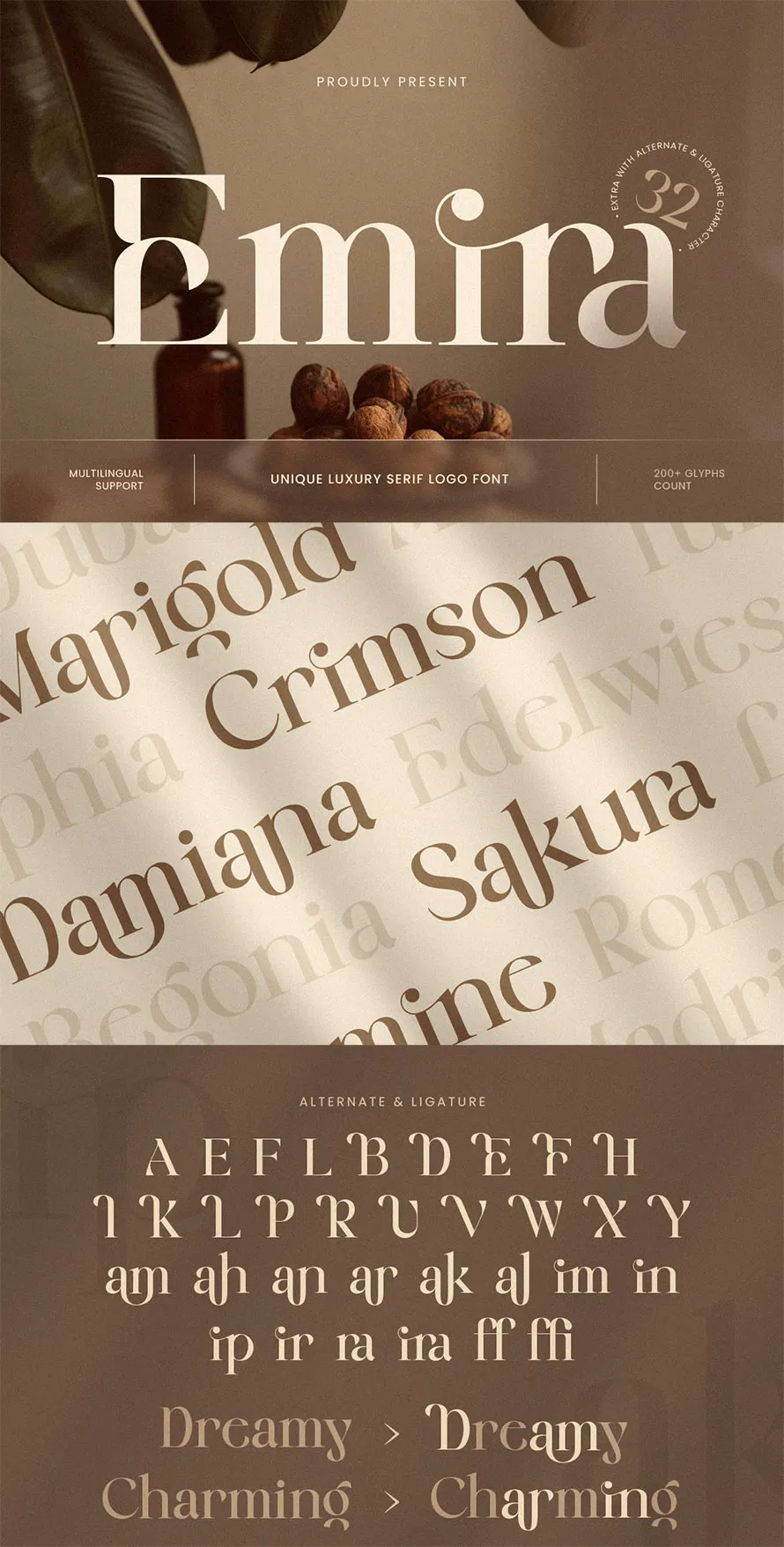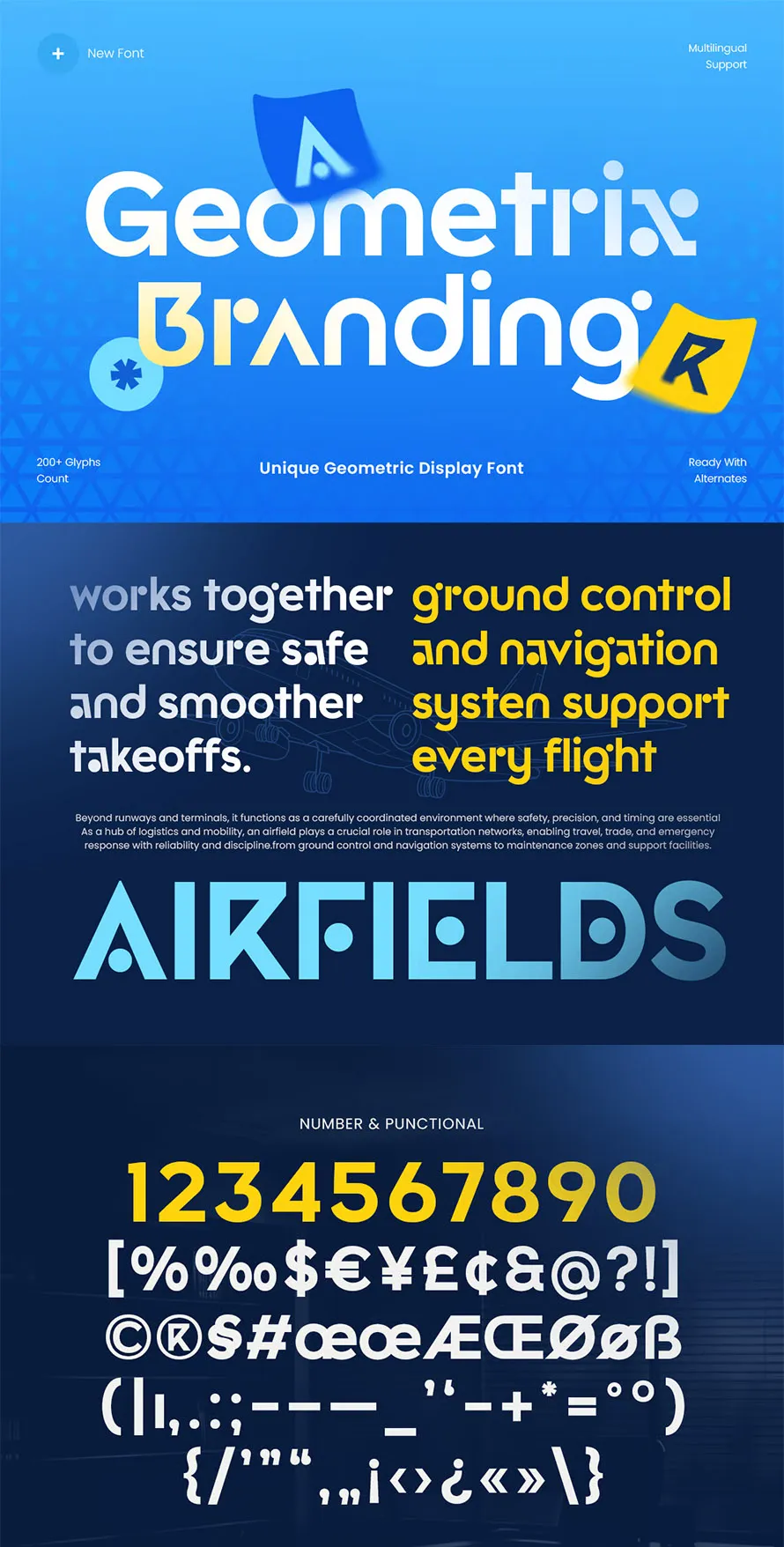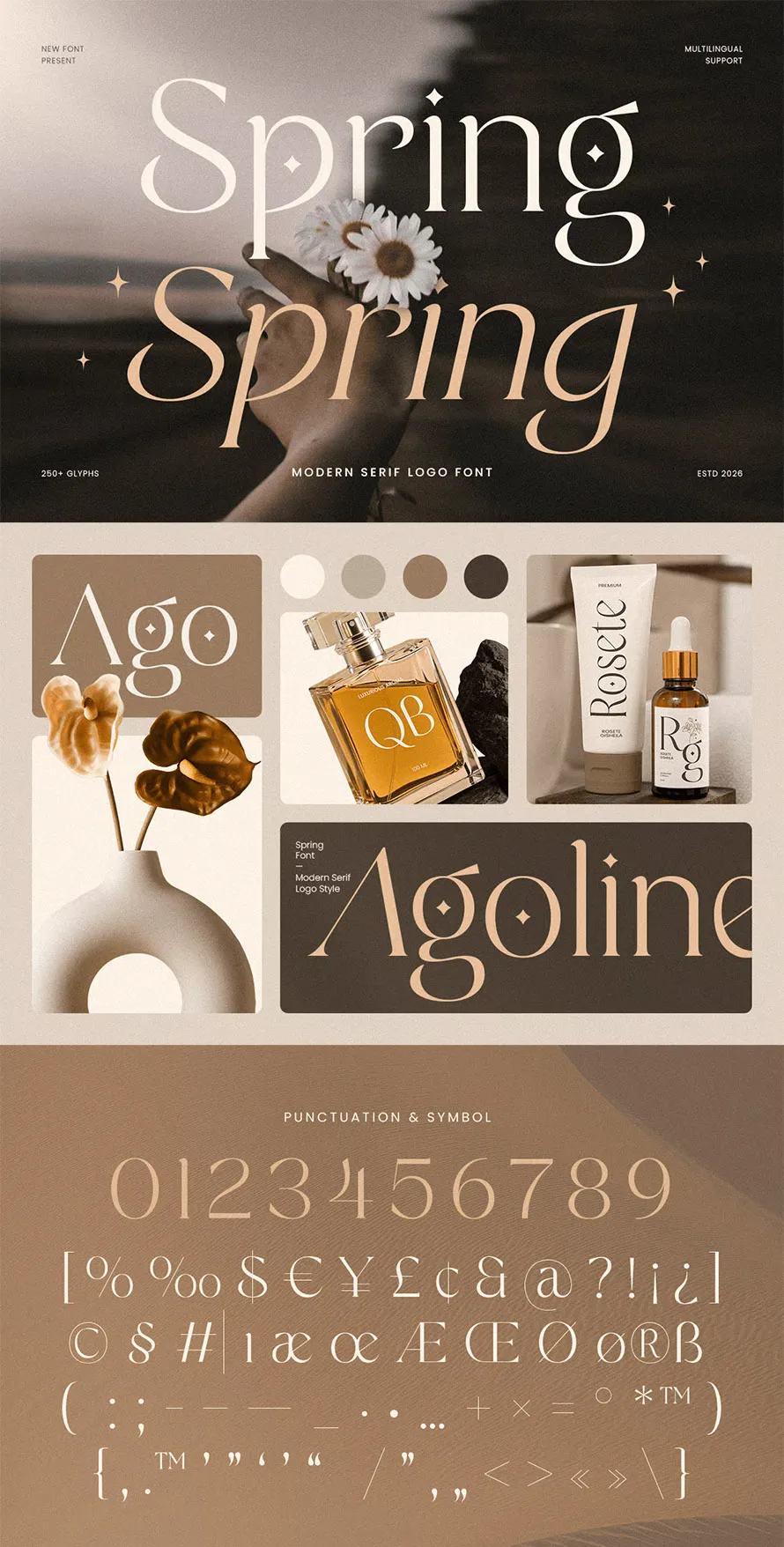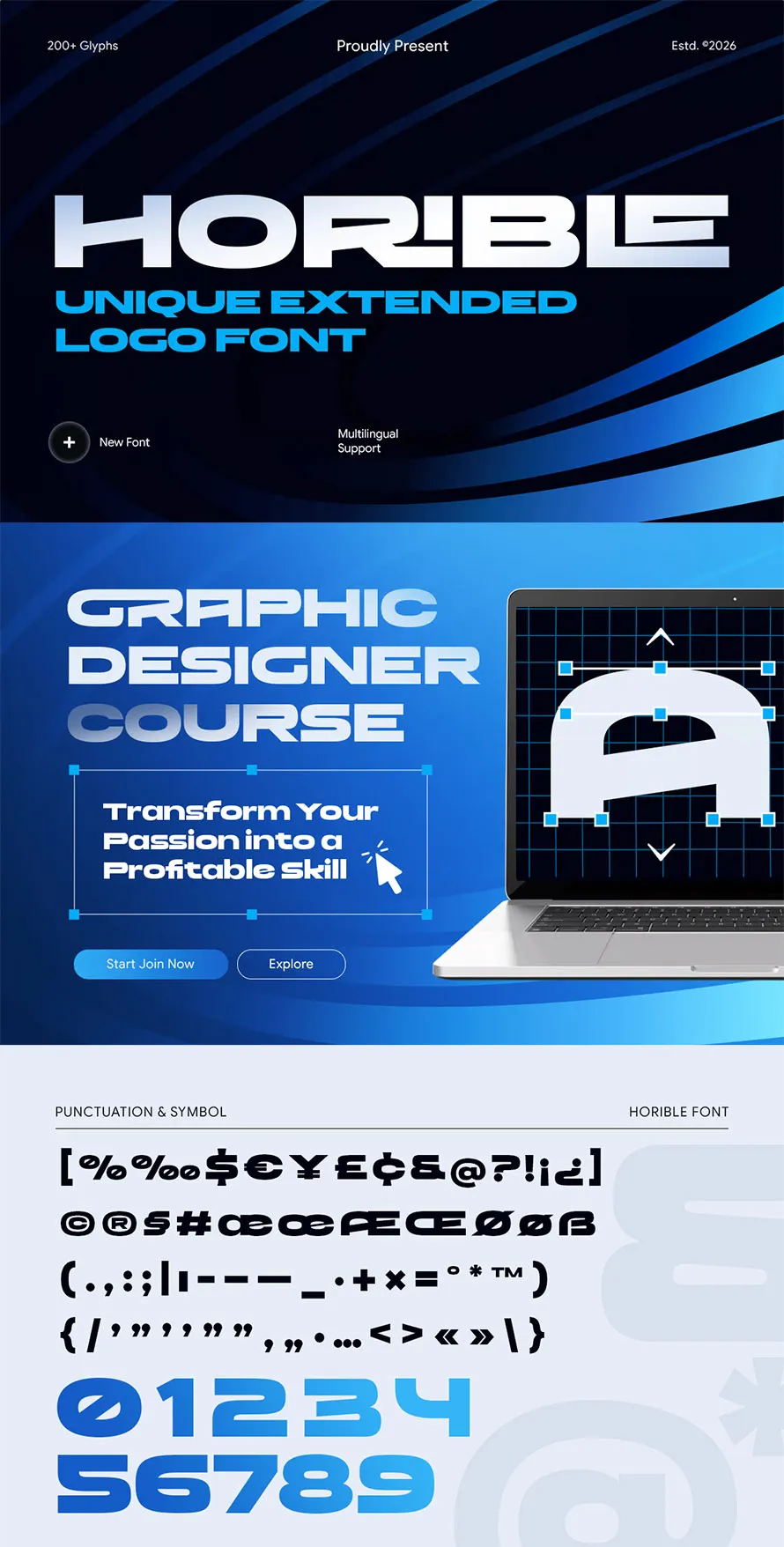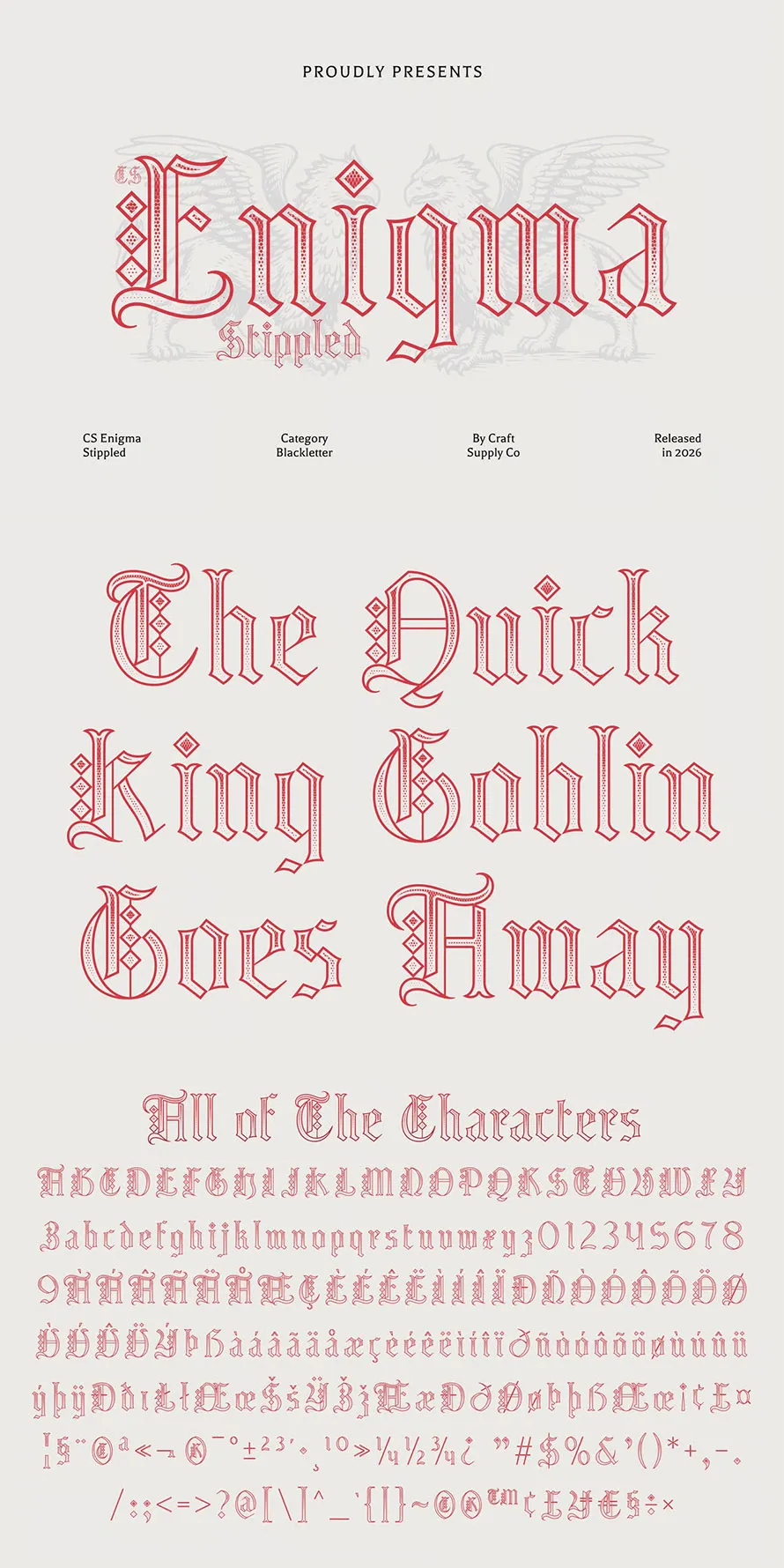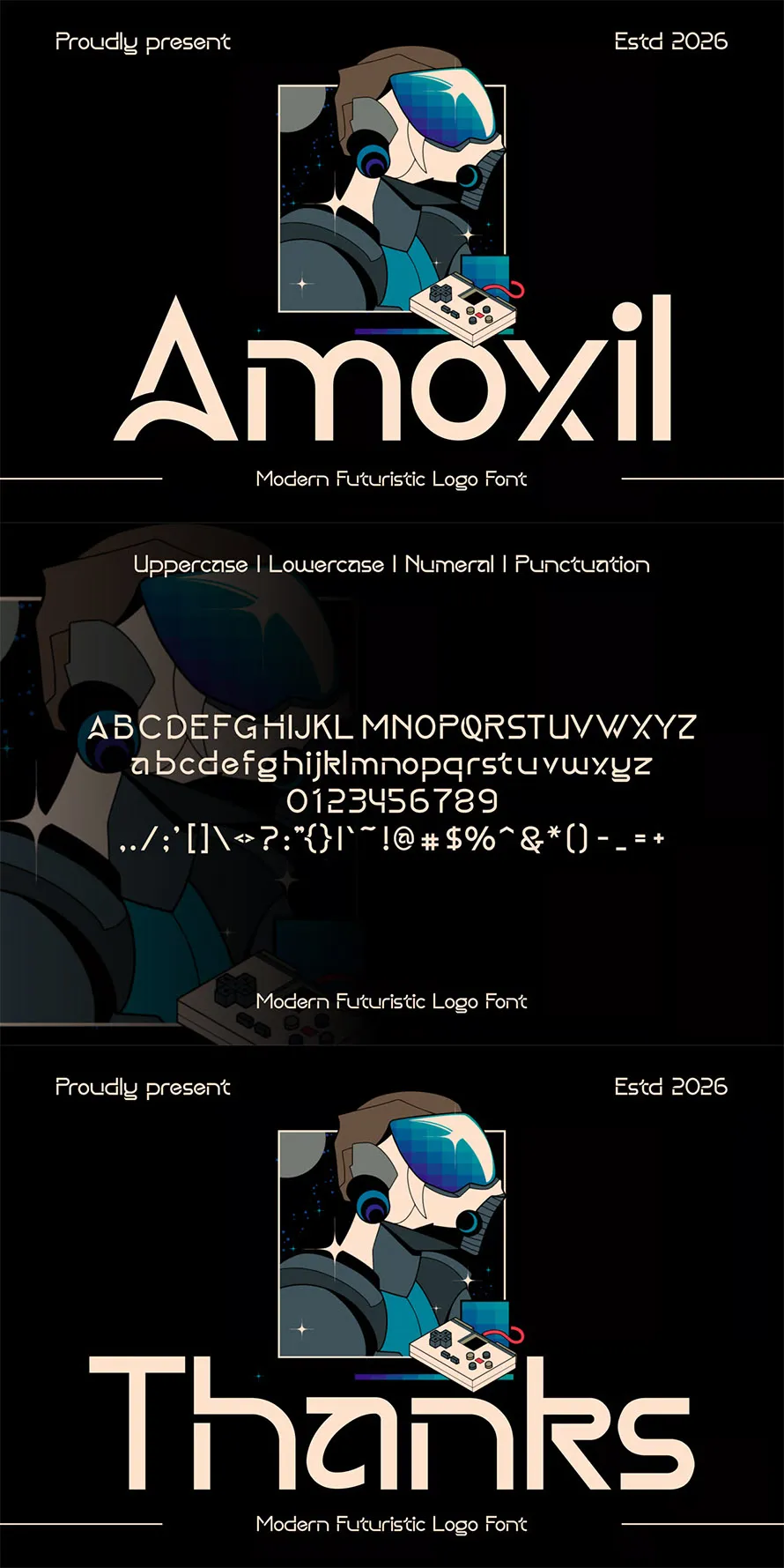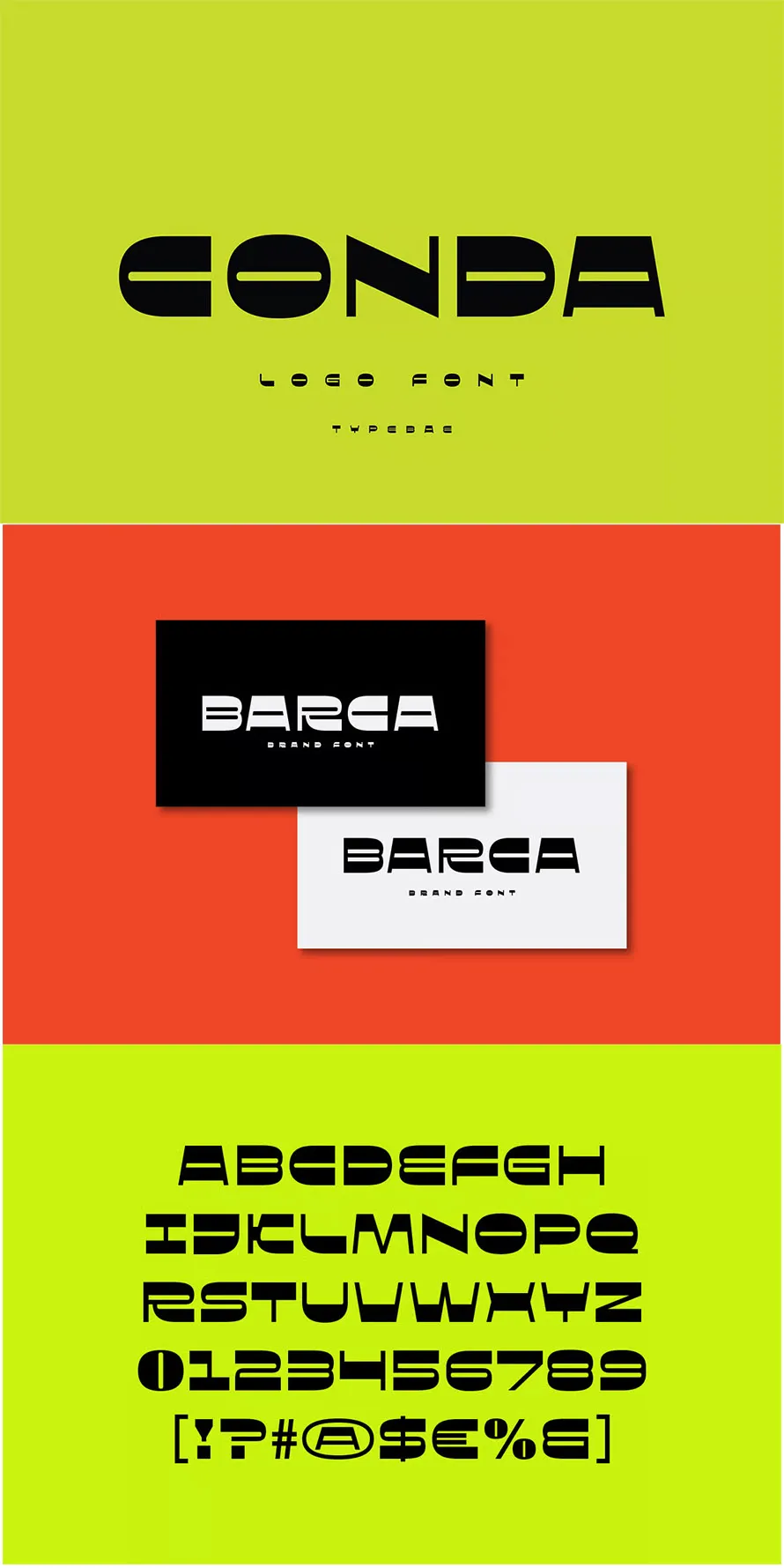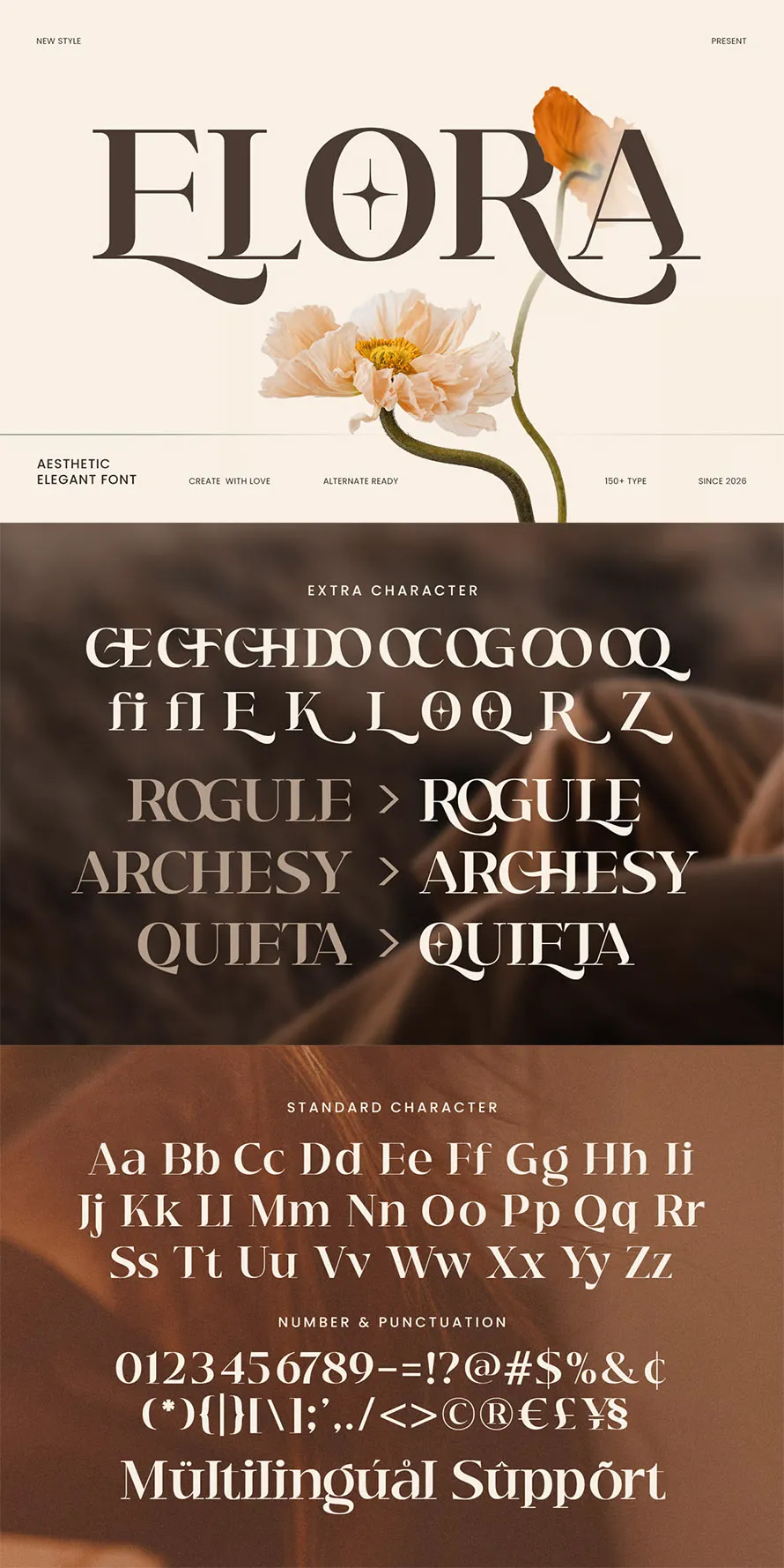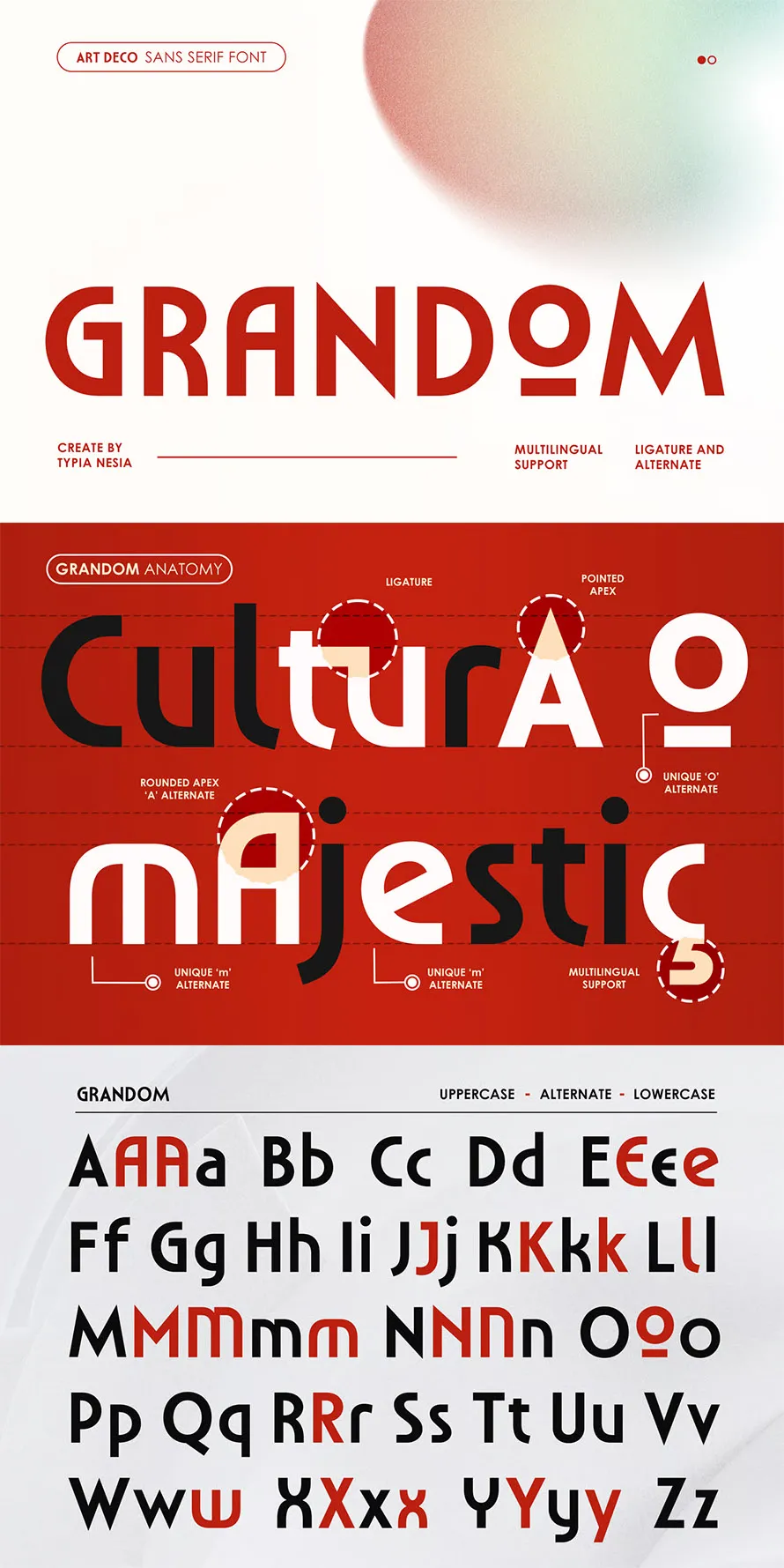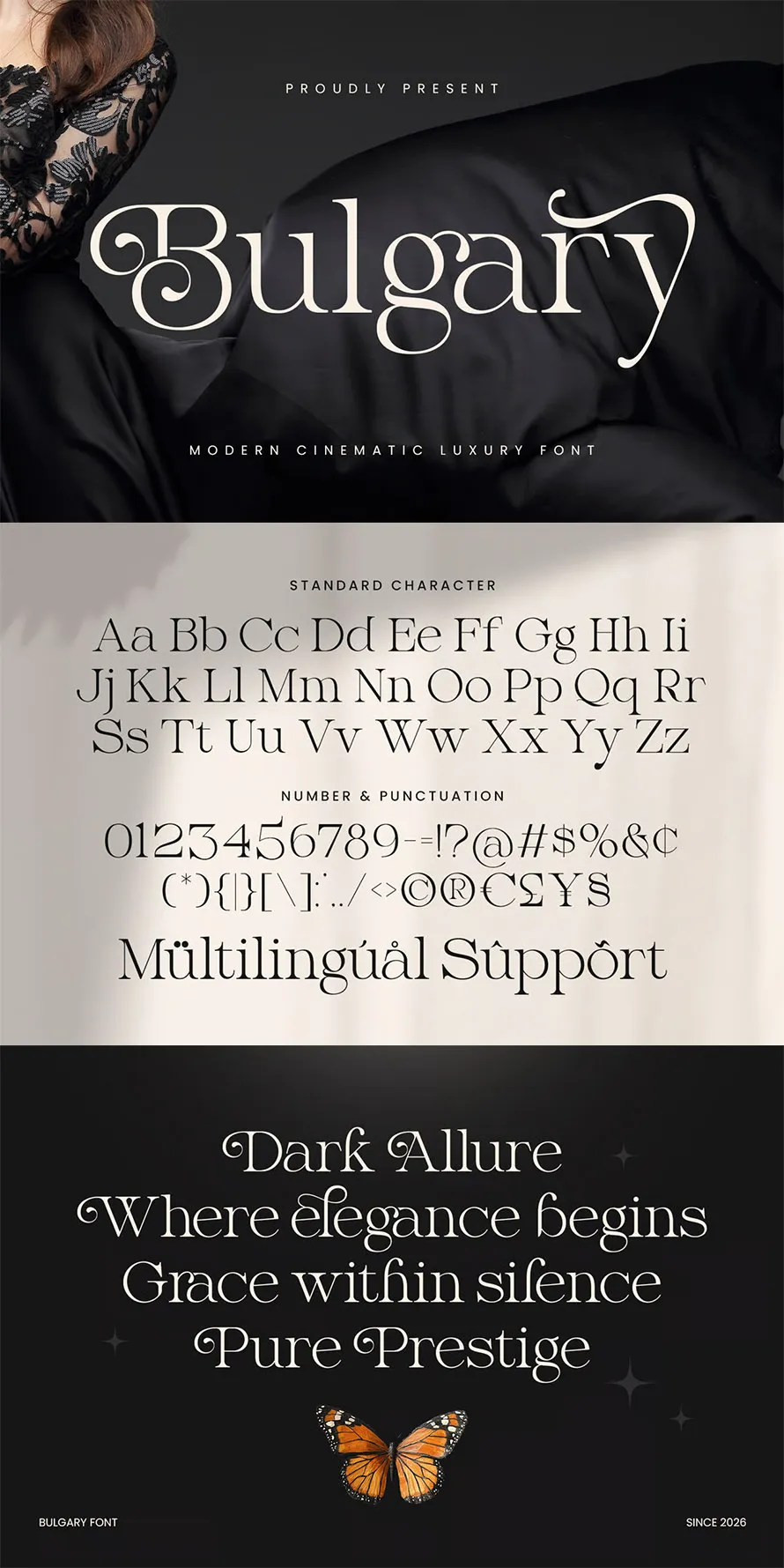
Logo fonts play a big part in brand design. A simple font can change how people feel about a company, store, or product. Some brands use bold text to look strong, while others use thin and clean letters for a modern style. Modern logo fonts help people remember a name faster. They also make logos look clear on websites, business cards, posters, and mobile screens. Picking the wrong font can make a logo look confusing or hard to read. That is why many designers spend time testing different styles before making the final logo.
There are many fonts for logos made for different kinds of brands. Fashion brands often use elegant serif fonts. Tech companies mostly choose clean sans serif styles. Restaurants, gaming channels, and music brands may use handwritten or playful fonts.
Designers also look at spacing, letter shape, and readability before choosing typefaces for logos. A font may look nice in large size but weak in small size. Some logo fonts work better in black and white, while others look better with color. Typography in logos should match the message of the brand without making the design too busy.
Many designers keep a small library of trusted fonts for daily work. It saves time and helps them build logo ideas faster. Trying different combinations can also help create fresh branding styles for clients and personal projects.
Torota Display Logo Font
Torota is a display font made for logos, posters, and social media posts. It has a clean and simple look that works for many projects. You get regular and italic styles.
Emira – Unique Luxury Logo Font
Emira is a serif logo font with a clean and classy look. It has clear letter shapes that work well for logos, branding, and packaging. You can use it for websites, labels, and posters.
Geometrix Branding – Unique Geometric Logo Font
Geometrix Branding is a geometric font with clean shapes and balanced letters. It works well for logos and headlines that need a clear look. The style feels simple and modern. It includes uppercase, lowercase, numbers, and symbols, and comes in OTF, TTF, WOFF, and WOFF2 files.
Spring – Modern Editorial Logo Font
Spring is a serif font made for logos and editorial work. It has clean shapes and a smooth look that fits branding, magazines, and packaging. It comes with regular and italic styles.
Horible – Unique Extended Logo Font
Spring is a serif font made for logos and editorial work. It has clean shapes and a smooth look that fits branding, magazines, and packaging. It comes with regular and italic styles.
Enigma Stippled
Enigma Stippled is a blackletter font with sharp shapes and a dotted texture. It mixes an old gothic style with a modern look. You can use it for posters, album covers, and branding. It includes regular and italic, plus letters, numbers, punctuation, and multilingual support.
Amoxil – Modern Futuristic Logo Font
Amoxil is a thick logo font with simple and clear letter shapes. It works well for film style credits, posters, and bold titles. The letters feel strong and easy to read. It includes uppercase, lowercase, numbers, punctuation, and comes in OTF and TTF files.
Conda Logo Font
Conda is a bold font with a futuristic look and sharp shapes. It works well for logos, posters, branding, and tech designs. The style feels strong and clear. It comes in all caps with numbers and punctuation, plus OTF, TTF, and WOFF files.
Elora – Modern Logo Font
Elora is a modern logo font with smooth curves and clean letter shapes. It works well for logos, packaging, posters, and fashion designs. You can also use it for cards and invitations. It includes multilingual letters and comes in OTF, TTF, and WOFF files.
Grandom – Bold Modern Art Deco Logo Font
Grandom is a bold Art Deco font with a clean and simple style. It works well for logos, posters, branding, and headlines. The letters feel strong and clear. It includes alternates, ligatures, numbers, and punctuation, and comes in OTF, TTF, and WOFF files.
Logo Font – Bulgary
Bulgary is a serif logo font with smooth curves and swash details. It works well for logos, branding, packaging, and invitations. The letters look stylish and easy to mix in different ways. It includes ligatures, alternates, and supports many languages for different design needs.
Network – Branding Technology Logo Sport Font
Network is a modern logo font made for tech, sports, and branding. It has a sharp and clean style that feels fast and strong. It works well for logos, esports, posters, and social media. It includes letters, numbers, punctuation, and comes in OTF, TTF, WOFF, and WOFF2 files.
Slimking
Slimking is a font made for posters, movie titles, albums, logos, and labels. It has a simple and bold style that fits many design tasks. It comes in OTF, TTF, and WOFF files. It is easy to use on different design projects.
Mearu Food – Branding Logo Font
Mearu Food is a logo font made for food branding and simple design work. It can be used for logos, ads, social media posts, and product designs. It has regular and italic styles. It comes in OTF, TTF, and WOFF files for easy use.
Hengky – Modern Vintage Logo Font
Hengky is a vintage logo font with a modern look. It has bold letters and smooth curves that fit branding, posters, packaging, and logos. The style feels retro but clear. It includes uppercase, lowercase, numbers, punctuation, and comes in OTF, TTF, WOFF, and WOFF2 files.
Wonome Mmodular Grid Logo Font
Wonome is a font made with block-like letters on a grid. It looks like building pieces or game parts. It is good for games, learning kits, and fun designs. It comes in TTF, OTF, WOFF, and WOFF2 formats and includes a regular style.
Harse – Clean Corporate Condensed Font
Harse is a clean condensed font made for business and corporate use. The letters are narrow and simple, so more words fit in small space. It works for logos, presentations, headlines, and branding. It includes uppercase, lowercase, numbers, punctuation, and comes in OTF, TTF, WOFF, and WOFF2 files.
Speclogo Classic Tech Logo Font
Speclogo is a fun and chunky font with a tech style. It has a playful look instead of formal letters. It is made for creative and digital designs. It comes in regular and italic styles and supports TTF, OTF, WOFF, and WOFF2 formats.
Riona – Modern Swash Logo Font
Riona is a swash logo font made for elegant branding. It has curved letters with decorative strokes that look like handwriting. It works well for logos, packaging, headers, and invitations. It includes uppercase, lowercase, numbers, punctuation, and comes in OTF, TTF, WOFF, and WOFF2 files.
Nagel – Unique Logo Corporate Font
Nagel is a corporate logo font with a simple but unique style. It is made for branding, logos, and business work. The letters are clean and easy to read but still stand out. It includes uppercase, lowercase, numbers, punctuation, and comes in OTF, TTF, WOFF, and WOFF2 files.
Logo Font – Qepho Modern
Qepho Modern is a bold sans serif font made for branding and logos. It has clean lines and a strong look that is easy to read. It works for websites, apps, packaging, and digital design. It comes in regular and italic styles and includes OTF, TTF, and WOFF files.
Bluster – Futuristic Logo Font
Bluster is a futuristic logo font with sharp shapes and a tech look. It is good for logos, headlines, and modern branding. The letters are clear and strong. It includes uppercase, lowercase, numbers, and symbols, and comes in TTF, OTF, WOFF, and WOFF2 files.